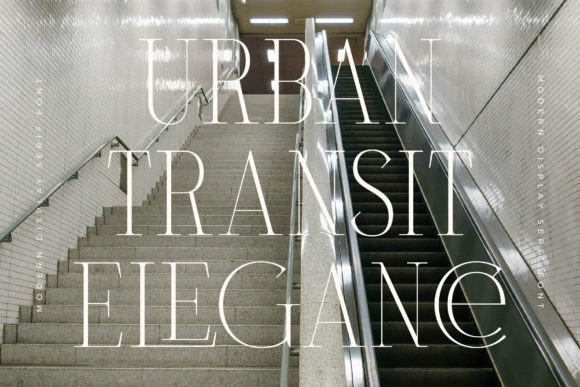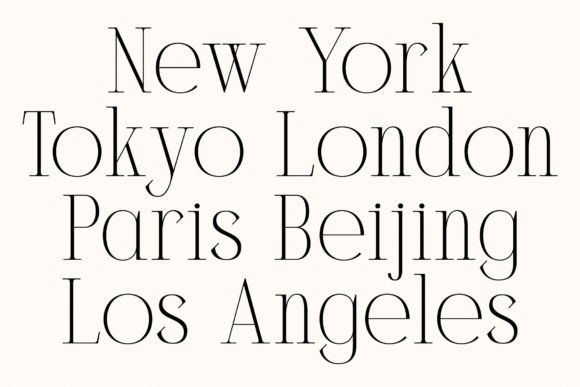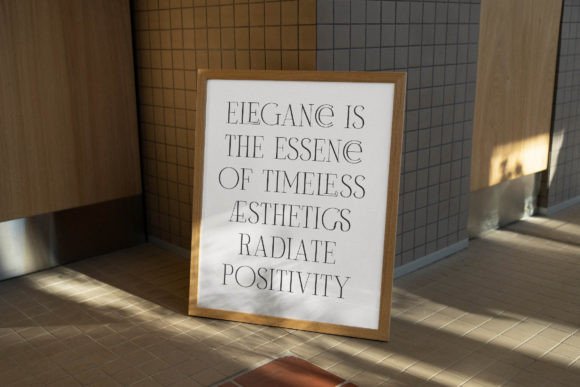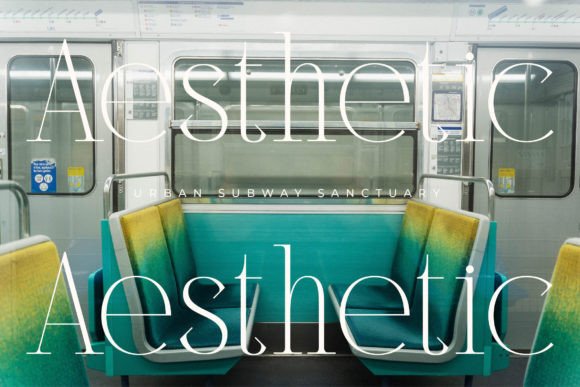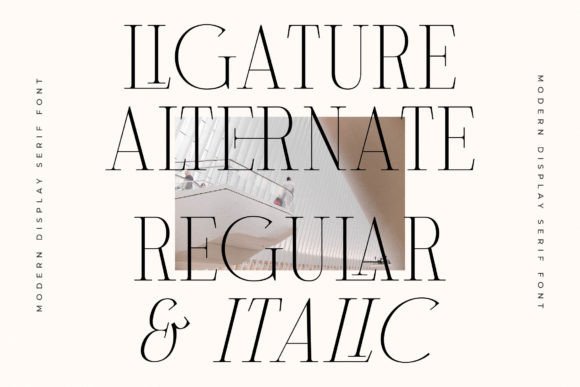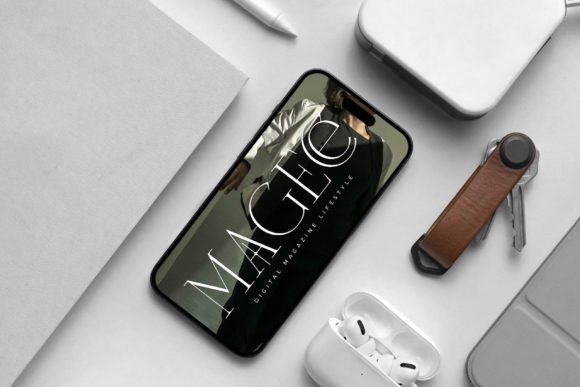
Introduction to Milegance Font
Milegance – Modern Display Serif , from Letterena, is a Luxury Serif font, suitable for any projects such as: logos, branding projects, homeware designs, product packaging, mugs, quotes, posters, shopping bags, t-shirts, book covers, name card, invitation cards, greeting cards, label, photography, watermark, special events, and all your other luxury and beautiful projects that need a Luxury Serif taste.
Milegance – Modern Display Serif , from Letterena, is a Luxury Serif font, suitable for any projects such as: logos, branding projects, homeware designs, product packaging, mugs, quotes, posters, shop
Key Features of Milegance Font
Why Choose Milegance Font?
Milegance Font offers exceptional quality and versatility, making it a valuable addition to your design toolkit. Whether you’re creating for personal projects or commercial use, Milegance Font delivers professional results.